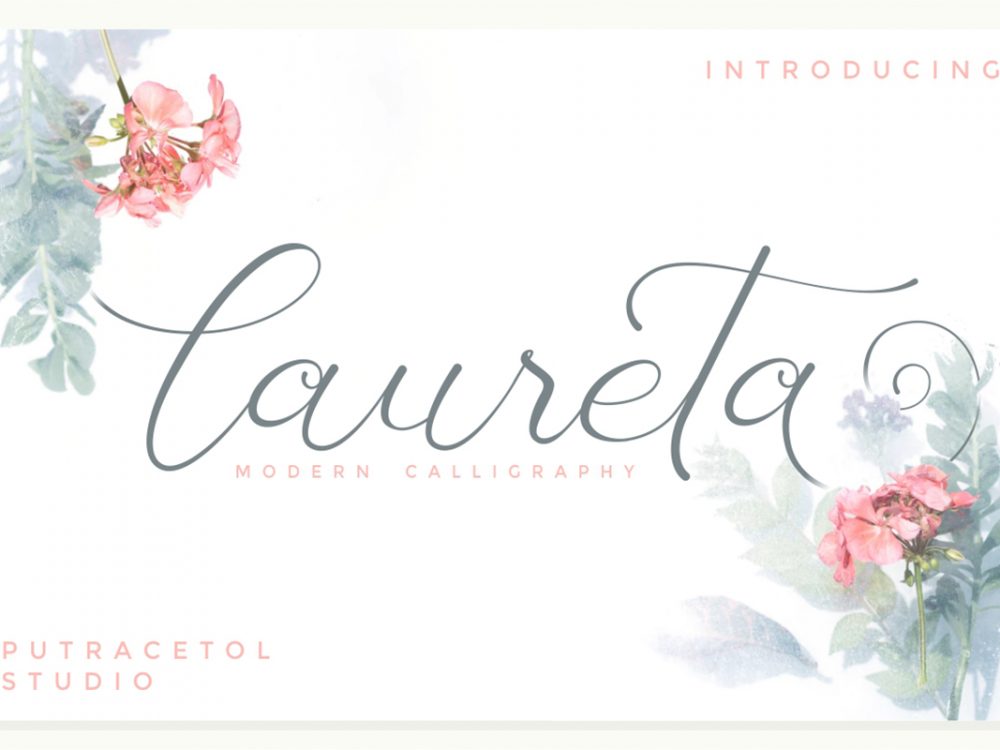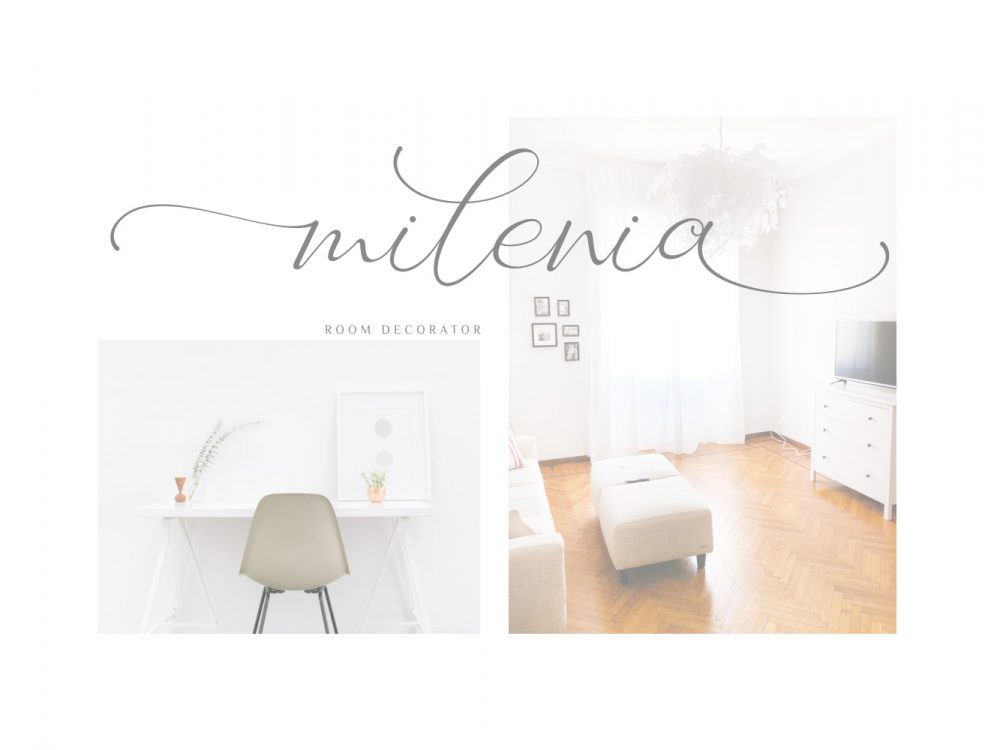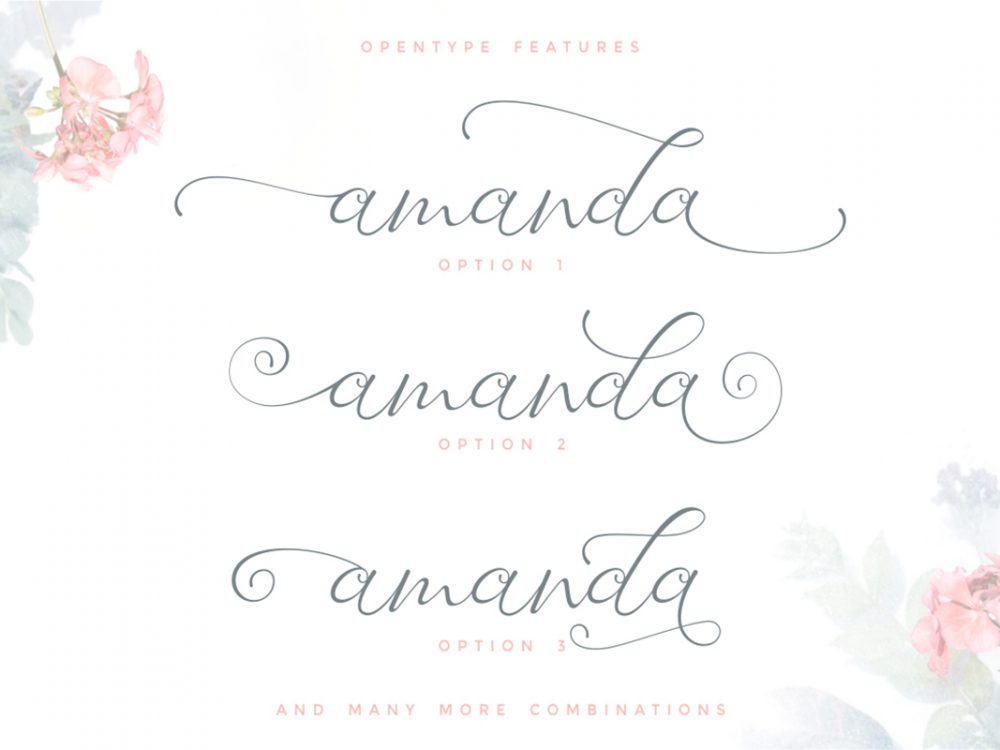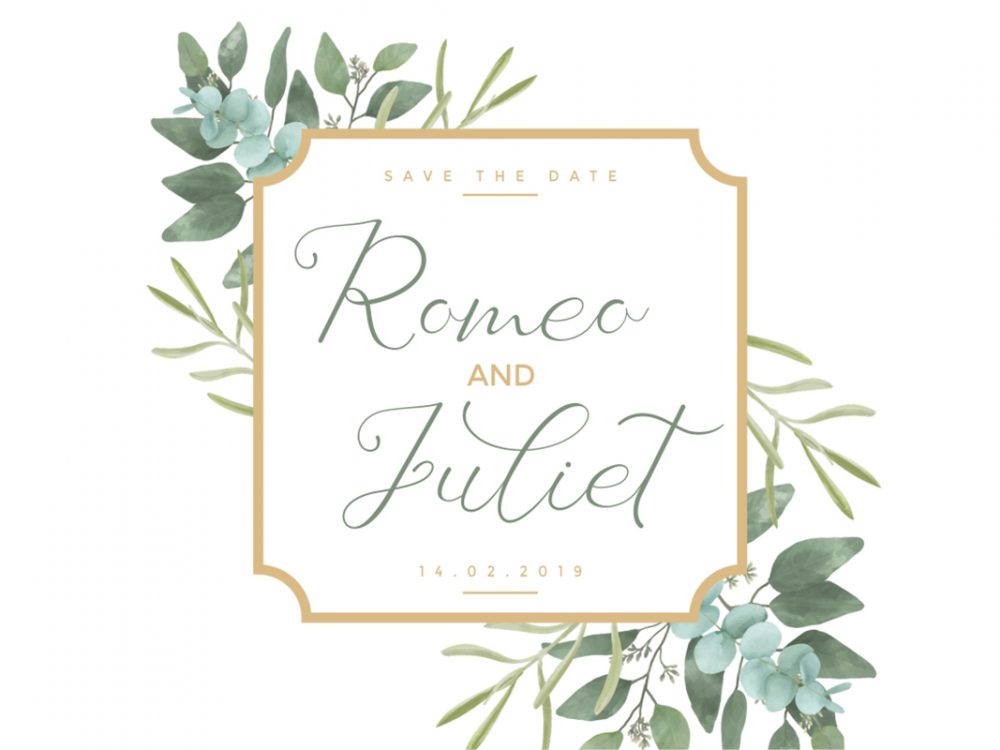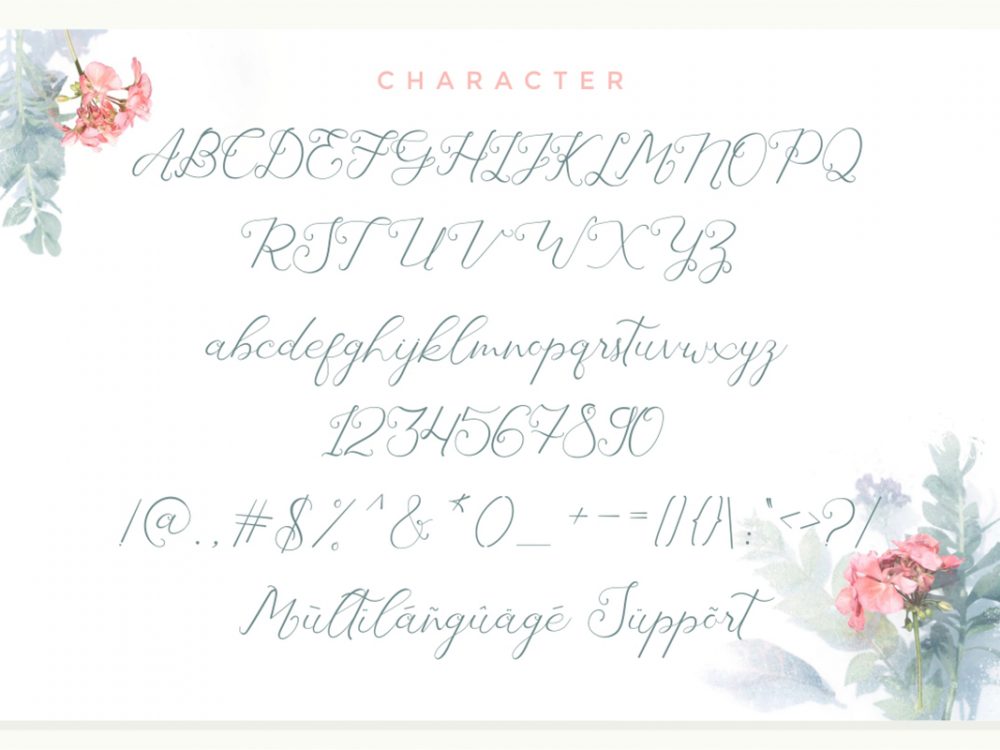
Laureta Free Font
Laureta Free Font is a stylish handwritten font that features an elegant calligraphic style. This font will help you create unique design projects and enhance your professional level. Use this font to create memorable posters, wedding invitations, cards, branding, flyers, and more. If you like it don’t forget to check out the full version.